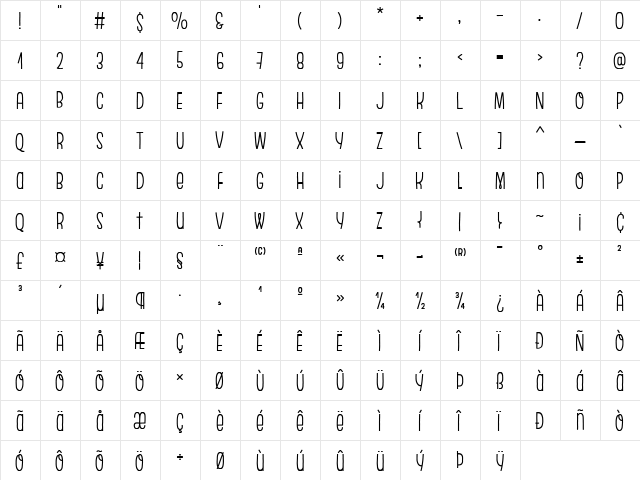
Escalope Crust One Font Preview
Escalope Crust One
Escalope Crust One Font Details
| Style | Crust One |
| Foundry | Julia Martinez Diana, Antipixel |
| Designer | Julia Martinez Diana, Antipixel |
Design Context for Escalope Typeface
Escalope takes a measured approach to typography — its balanced proportions and neutral character make it a reliable workhorse for both digital and print work.